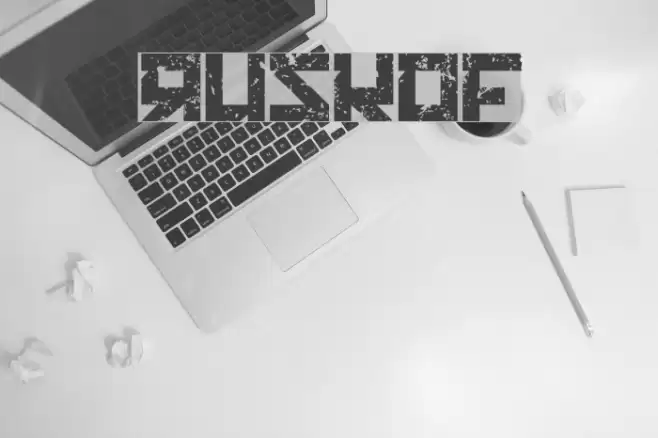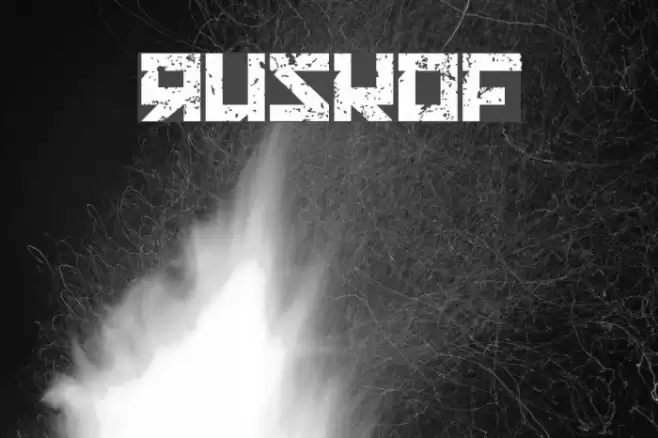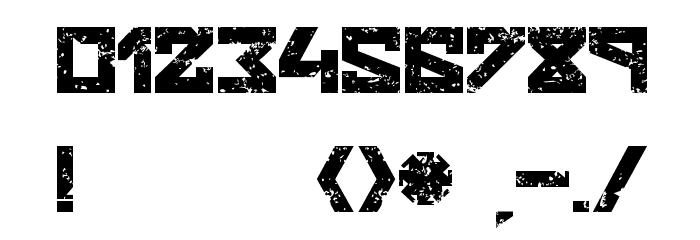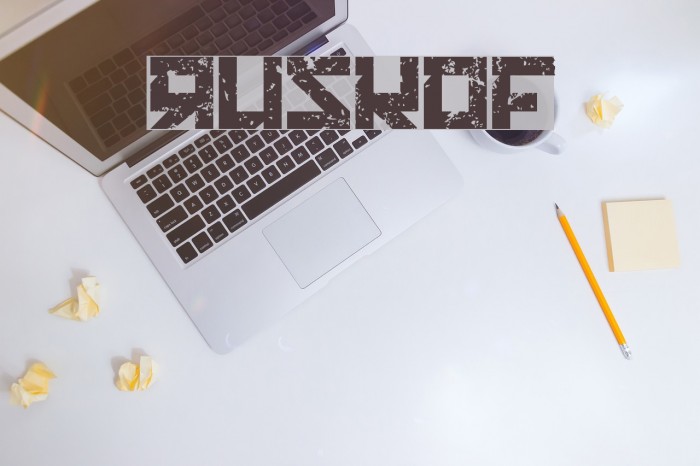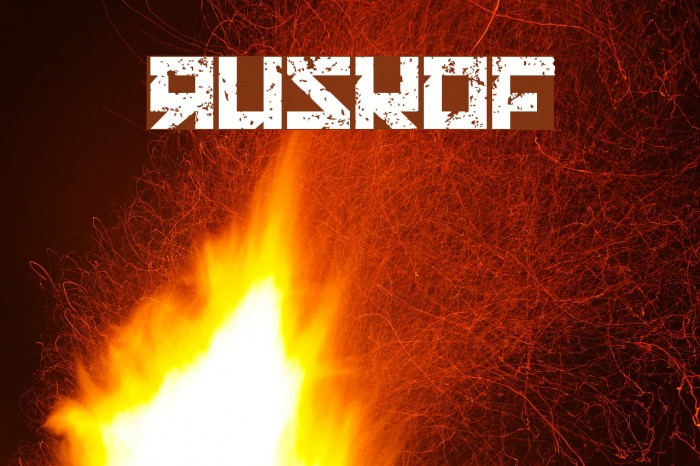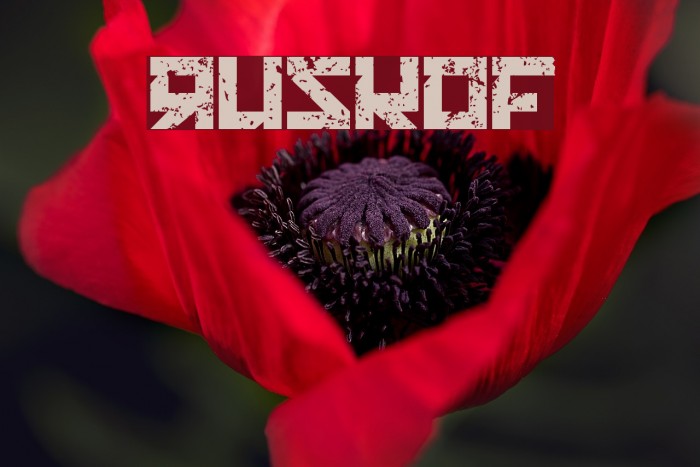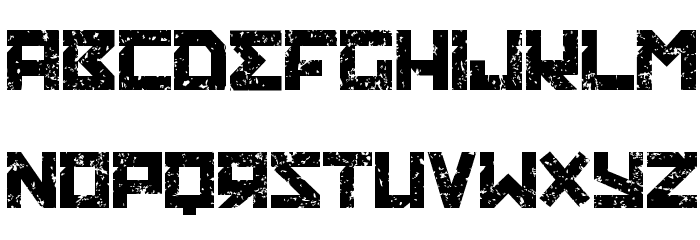
RUSKOF Font
RUSKOF Description
This font features a bold, distressed style with a rough, textured appearance that gives it a gritty, urban feel. The characters are blocky and geometric, with sharp angles and a consistent thickness throughout. The distressed effect is applied uniformly across all characters, creating a cohesive look that suggests wear and tear, making it ideal for designs that require a rugged or industrial aesthetic. The uppercase and lowercase letters maintain a similar style, ensuring readability while adding a unique character to each glyph. The numbers and special characters follow the same design principles, providing a complete and versatile typeface.
A bold, distressed font with a gritty, urban aesthetic from Uncategorized fonts.
- Proposed Projects: Ideal for posters, album covers, streetwear branding, and urban-themed designs.
- Overall Style: Urban, Industrial